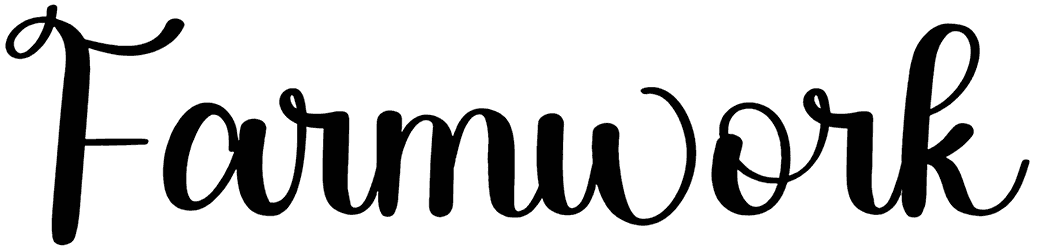
Farmwork Font
As a lovely farmhouse font, Farmwork can take any project to the next level. Thanks to its graceful calligraphy letters, this stylish font is perfect for use in media graphics, banners, and other similar items.